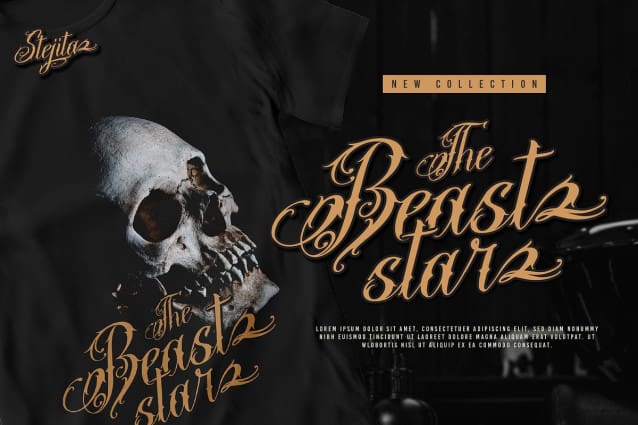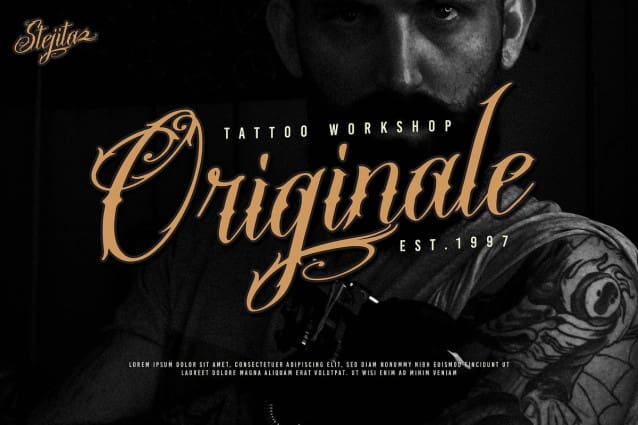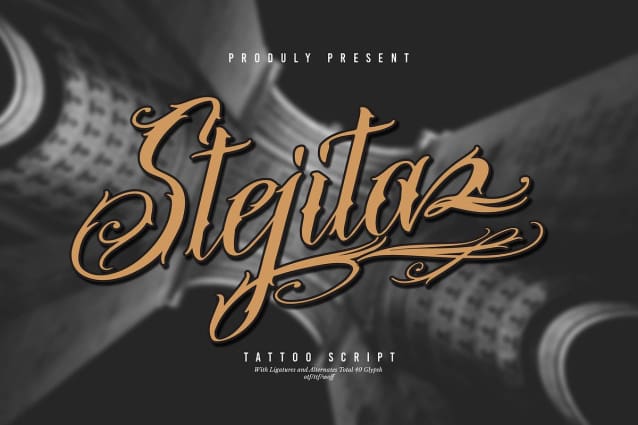
Stejita Script Font
Stejita Script Font | Tattoo Script Font, from Denustudios, suitable for any projects such as: logos, branding projects, homeware designs, product packaging, mugs, quotes, posters, shopping bags, t-shirts, book covers, name card, invitation cards, greeting cards, label, photography, watermark, special events, and all your other lovely projects that need a Tattoo Script taste.